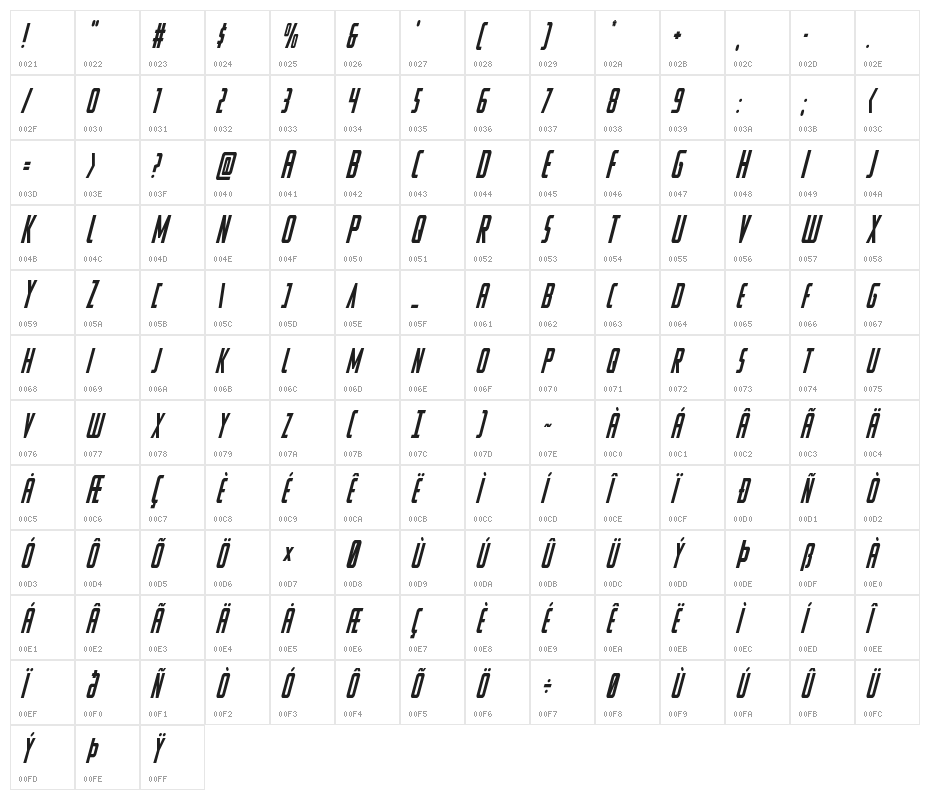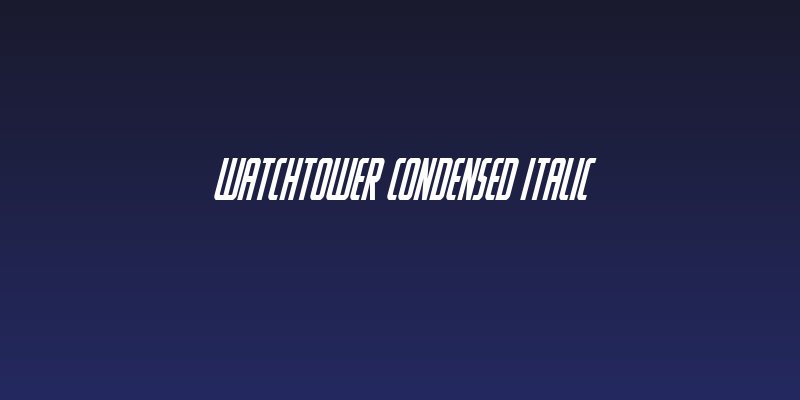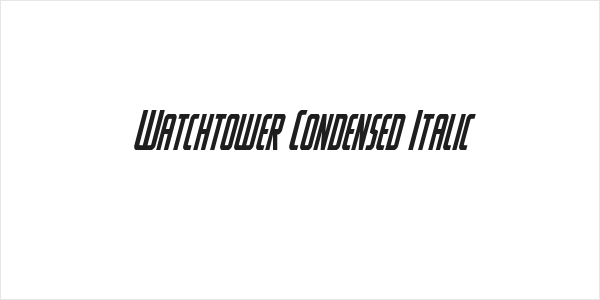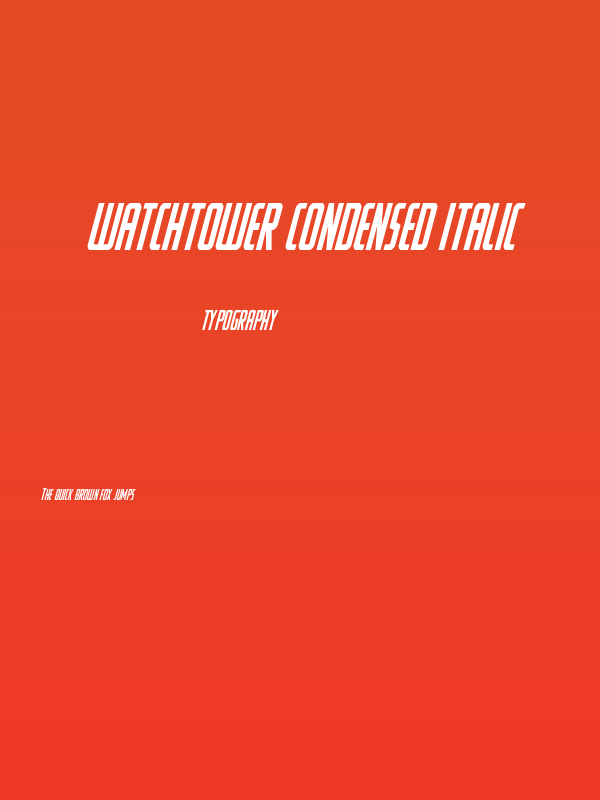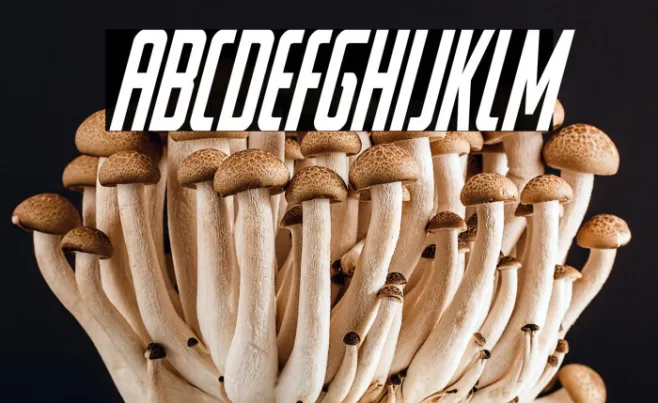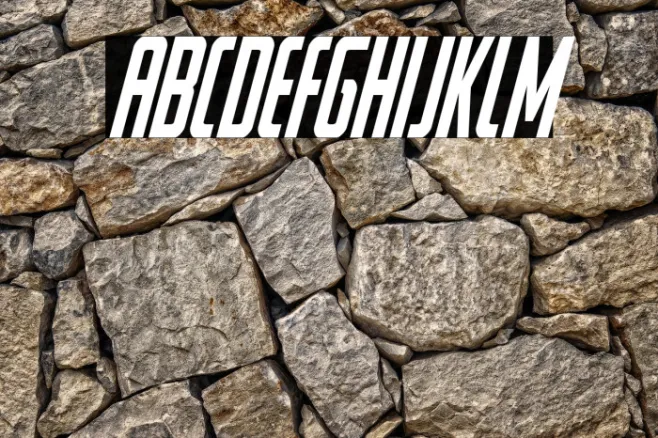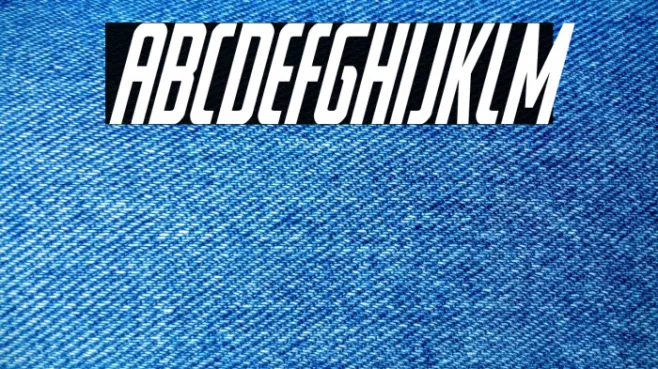
Watchtower Condensed Italic Font
Watchtower Condensed Italic Description
This font features a bold and dynamic design with a condensed and italicized style. The characters are elongated and slanted, giving a sense of movement and urgency. The uppercase and lowercase letters maintain a consistent height, enhancing readability while preserving a sleek appearance. The numerals and special characters are designed to match the overall aesthetic, with sharp angles and clean lines. This font's unique style makes it suitable for projects that require a modern and energetic look.
| Proposed Projects | Ideal for sports branding, dynamic posters, modern advertising, and eye-catching headlines. |